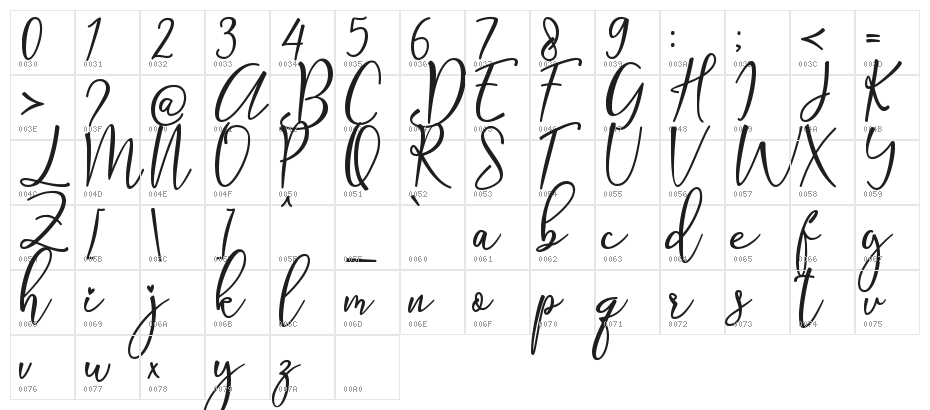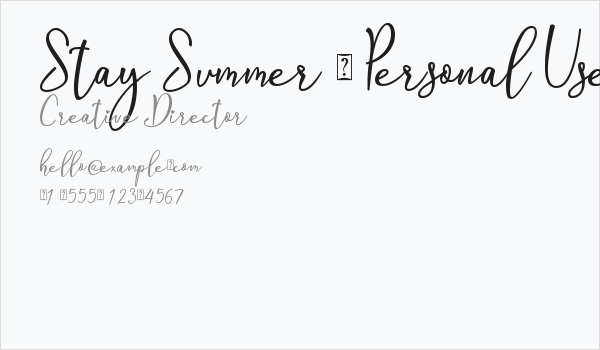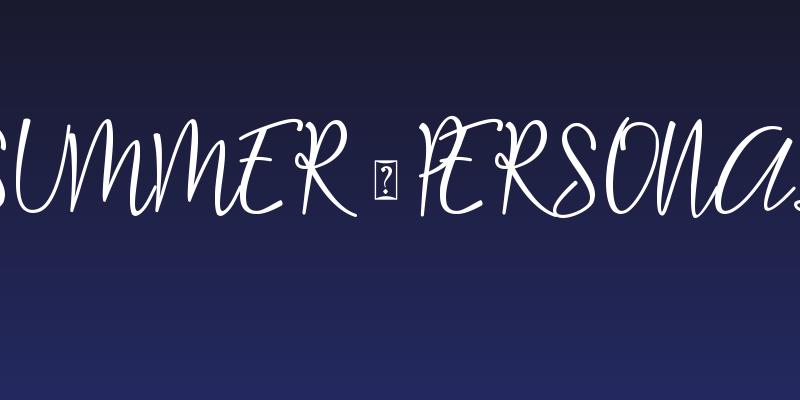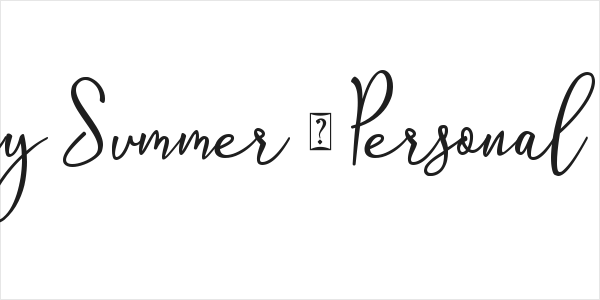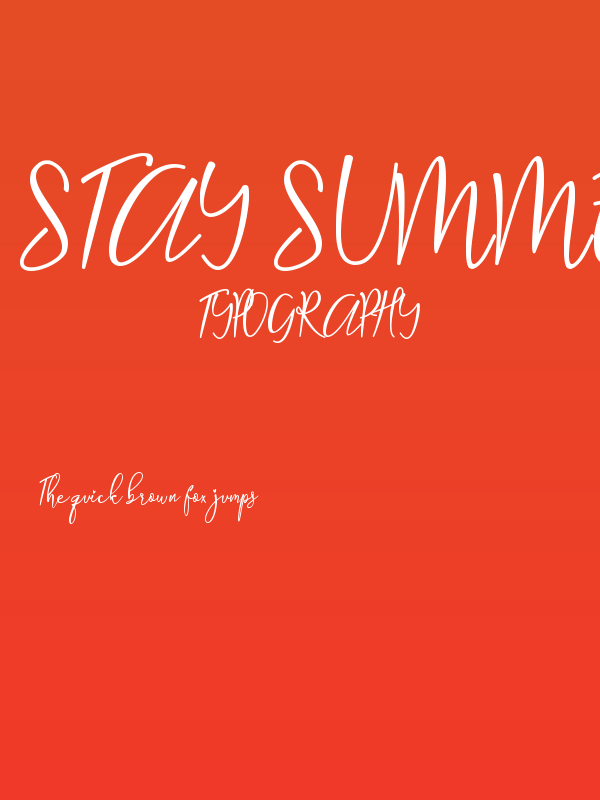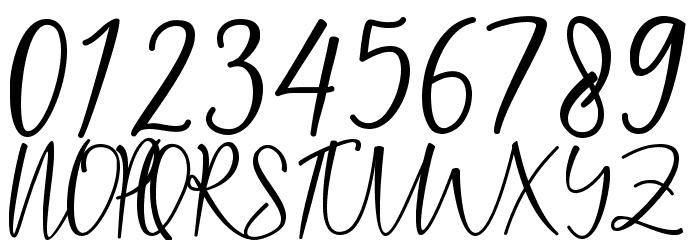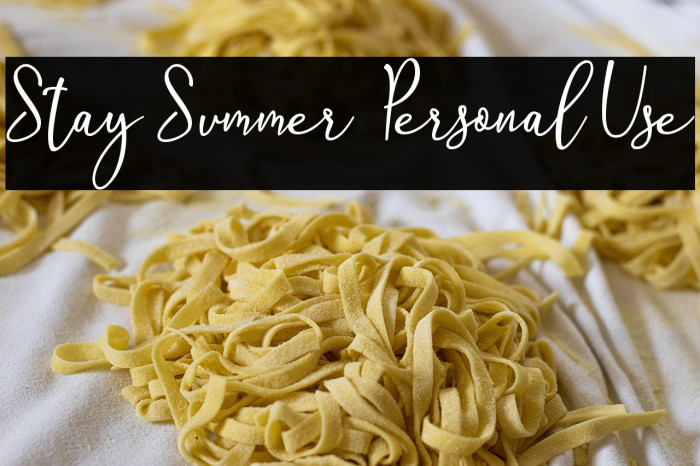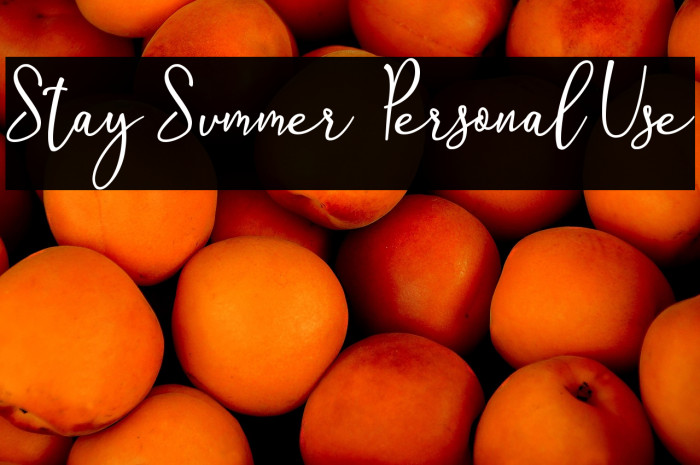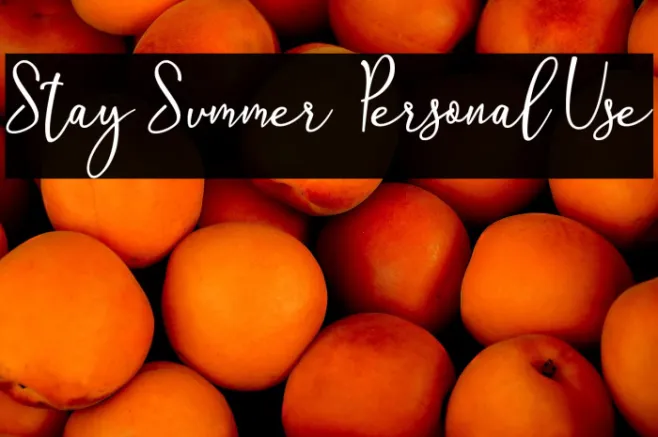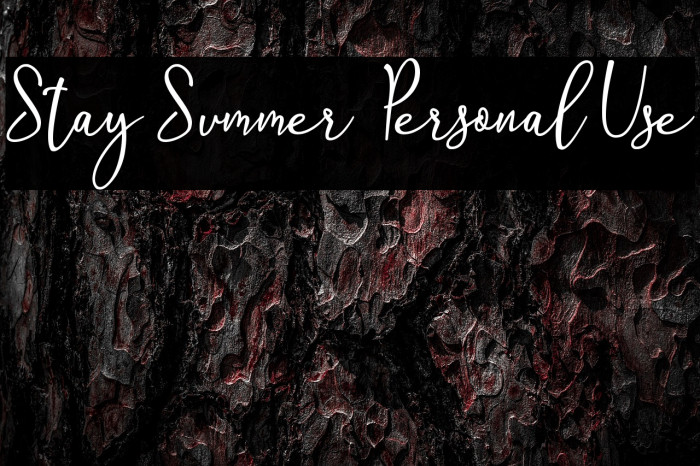
Stay Summer - Personal Use Font
Stay Summer - Personal Use Description
This font features a lively and expressive handwritten style, characterized by its fluid and dynamic strokes. The letters are connected in a cursive manner, giving it a personal and informal feel. The uppercase letters are tall and slightly narrow, while the lowercase letters are more rounded and flowing. The numbers maintain the same playful and casual aesthetic, making them blend seamlessly with the alphabet. Special characters are integrated with the same whimsical touch, adding to the font's overall charm. The strokes vary in thickness, providing a natural and organic look that is both approachable and stylish.
| Use Case | Logos, Invitations, Social Media Graphics |
| Proposed Projects | Ideal for personal invitations, greeting cards, branding projects, and social media graphics. |